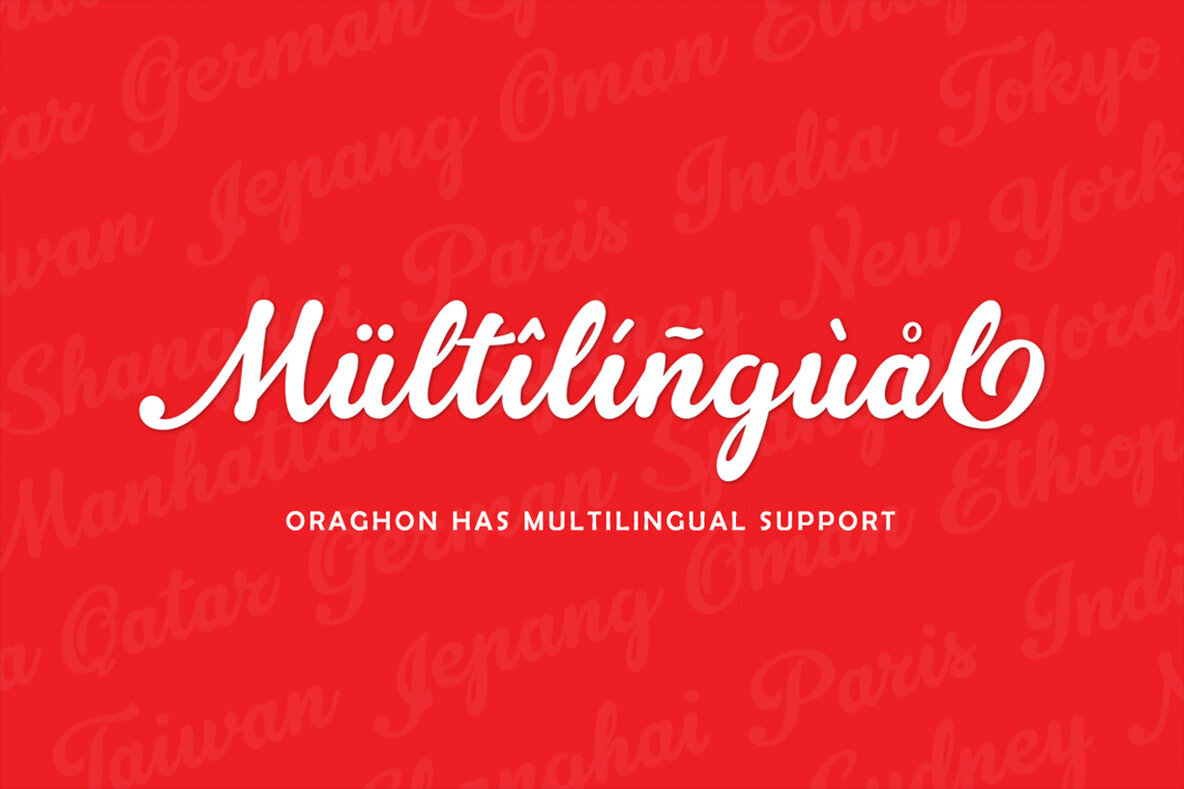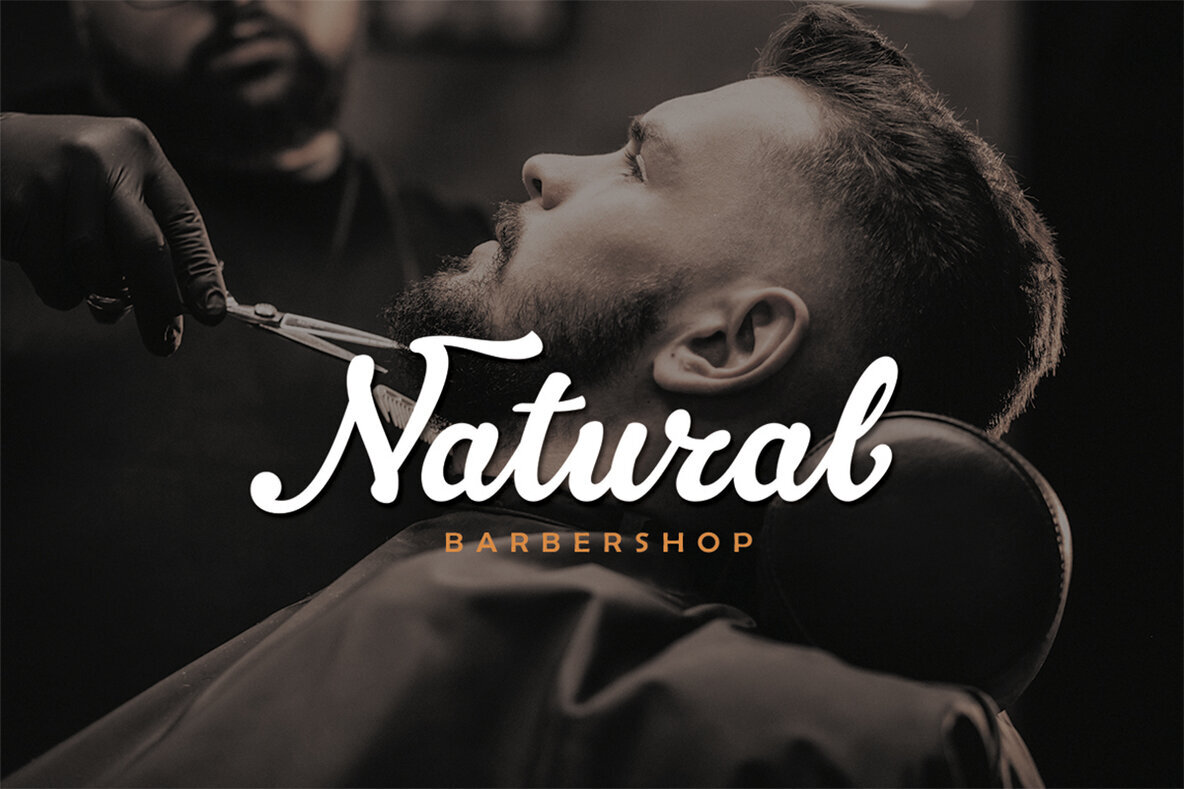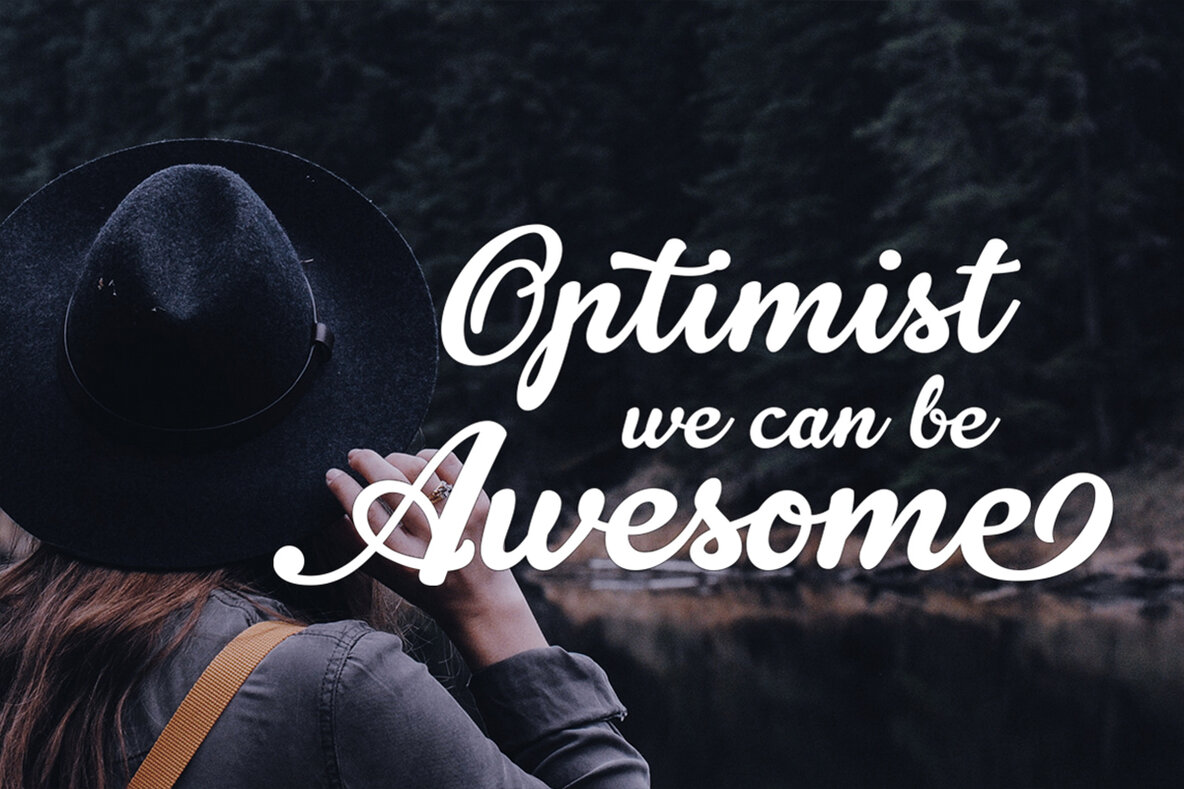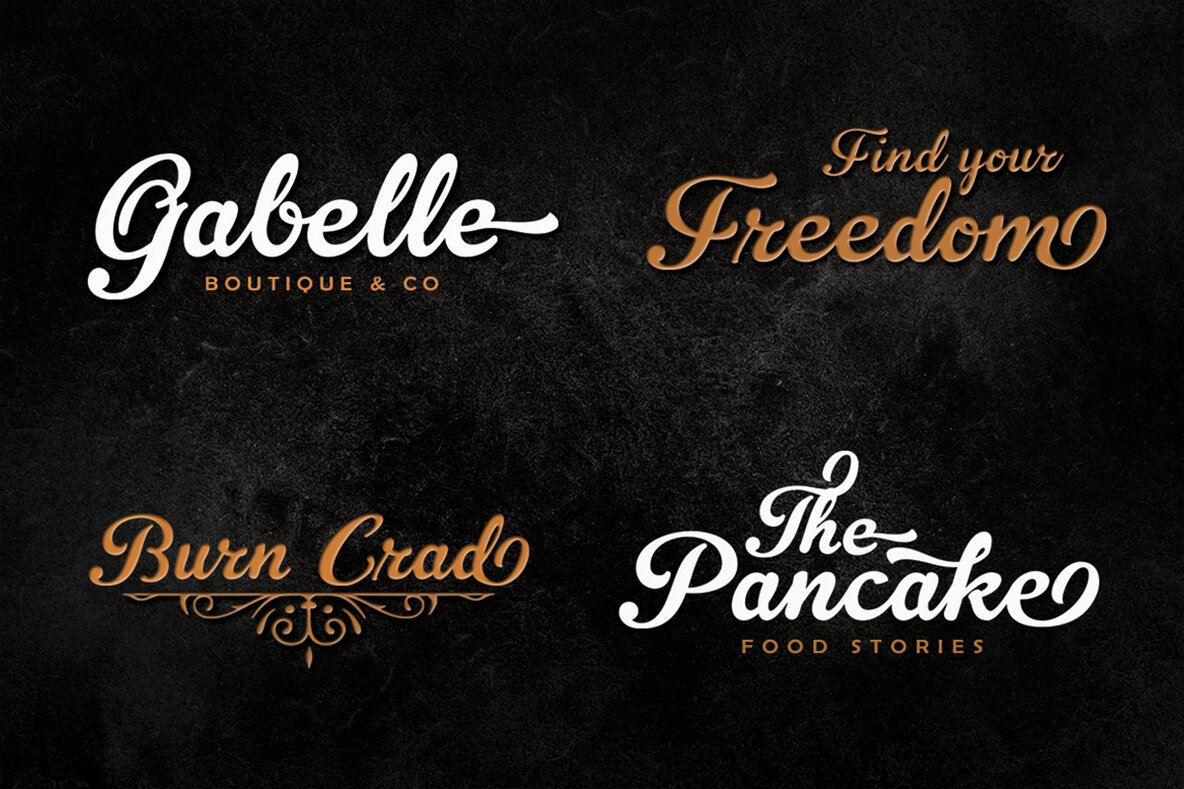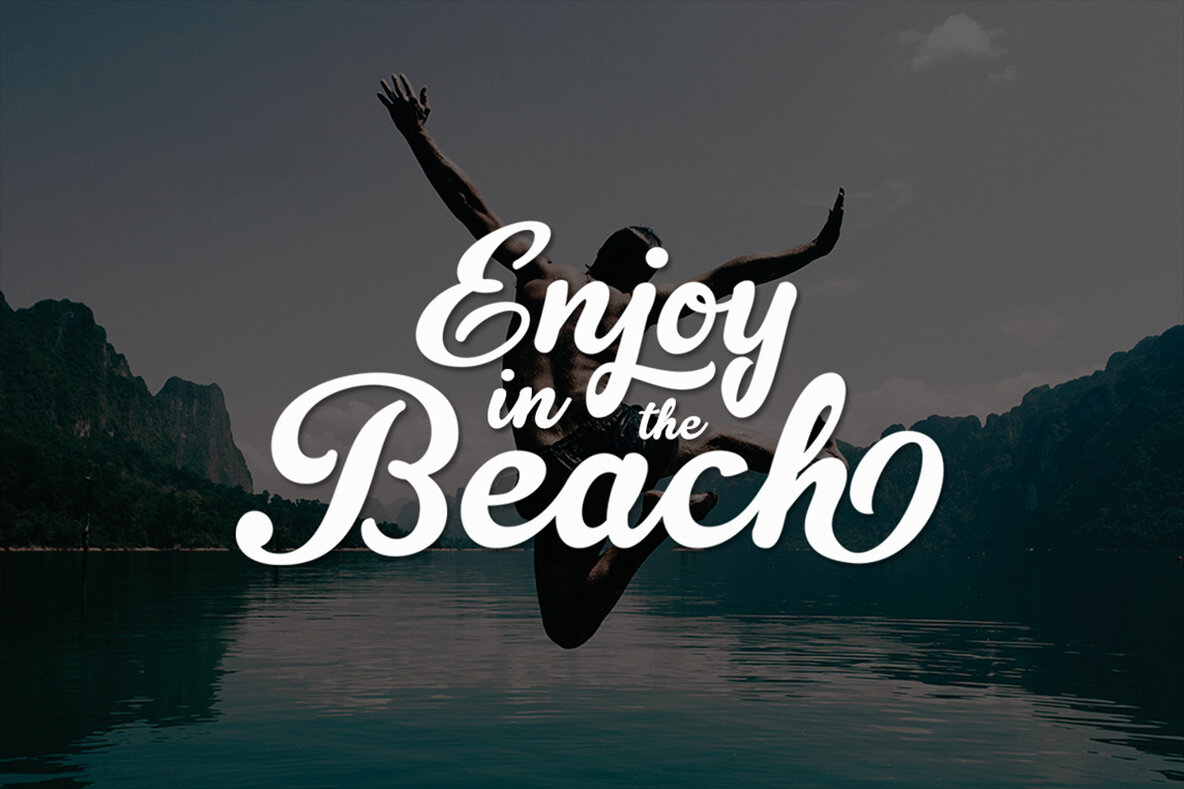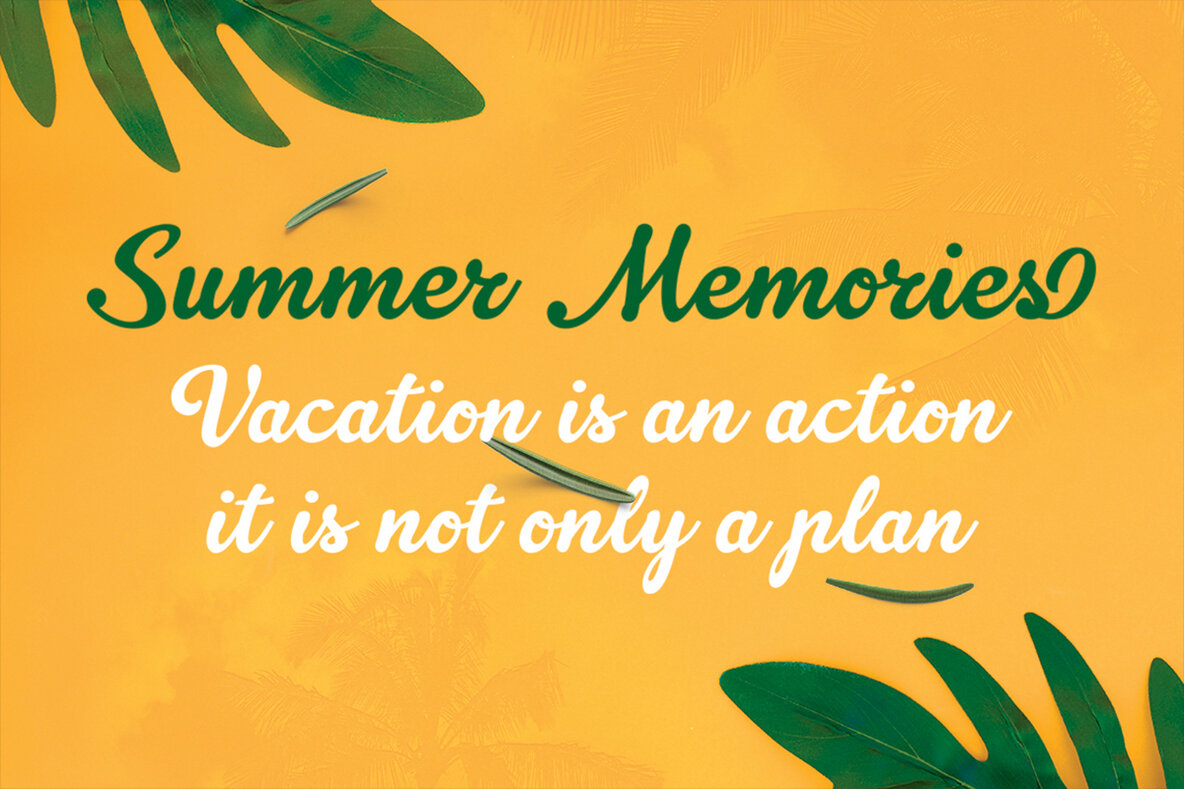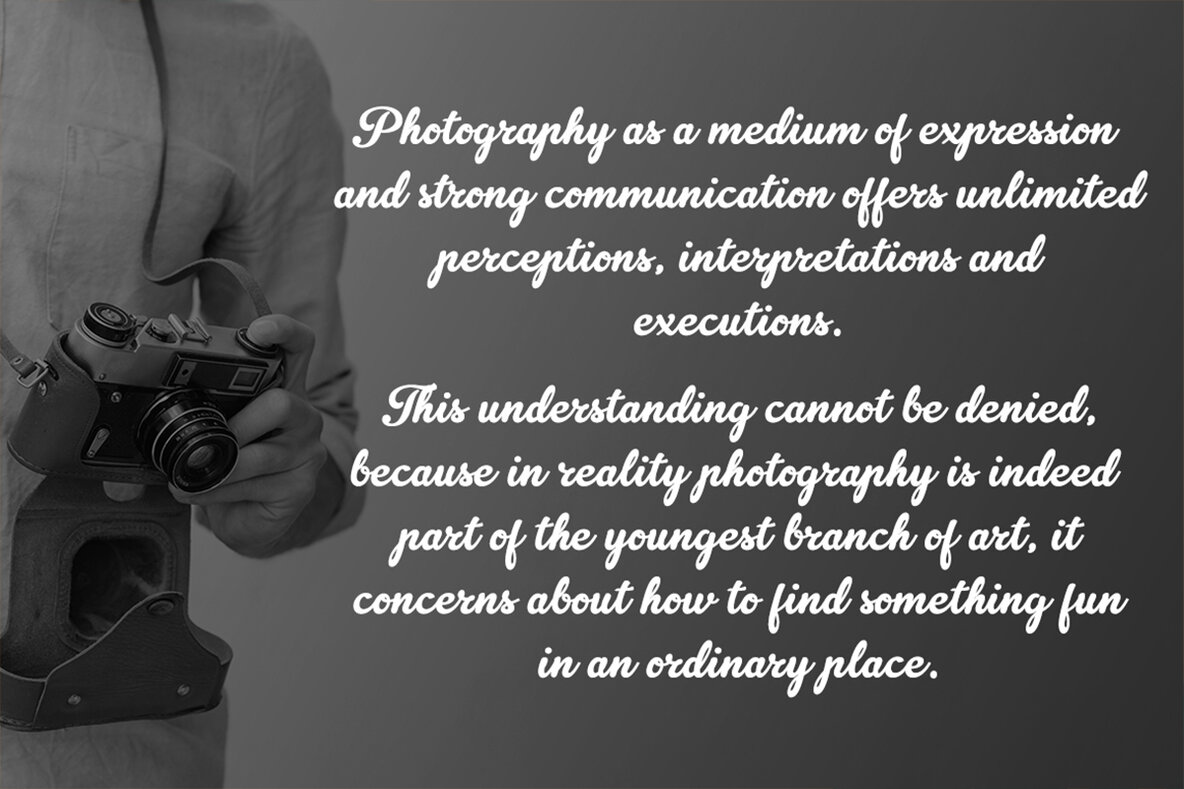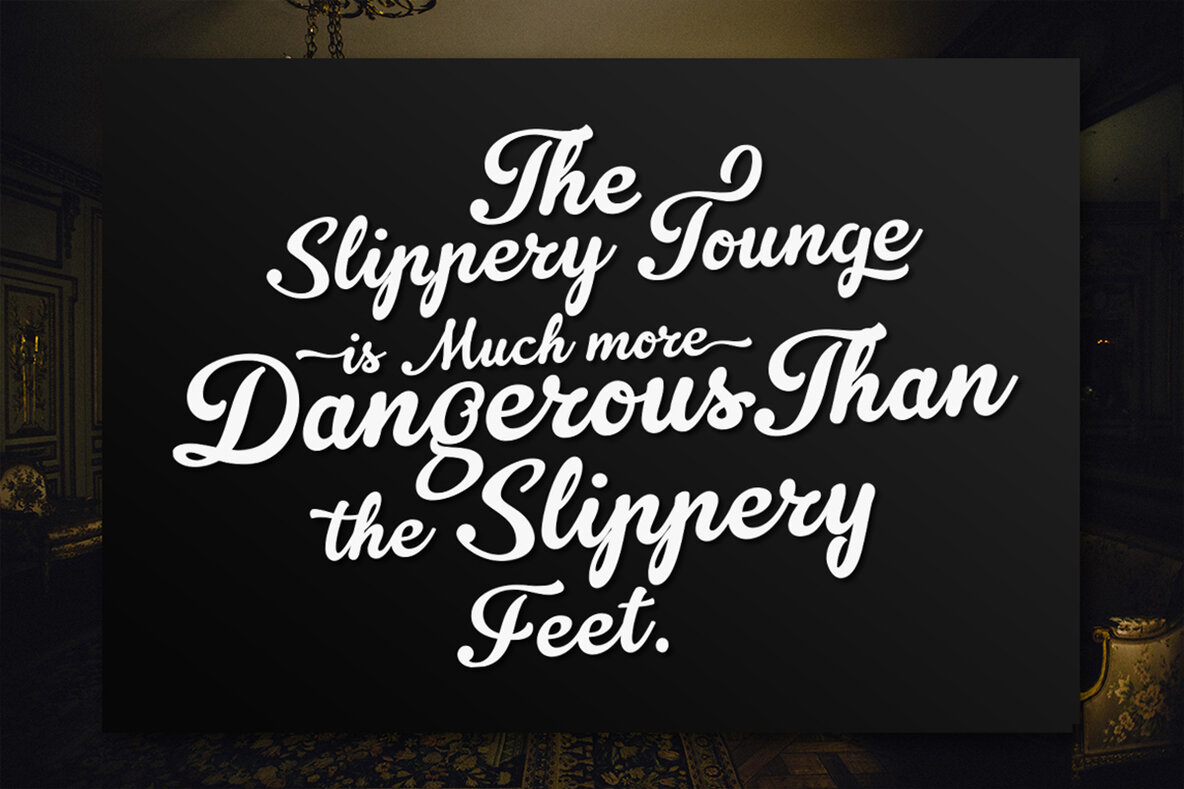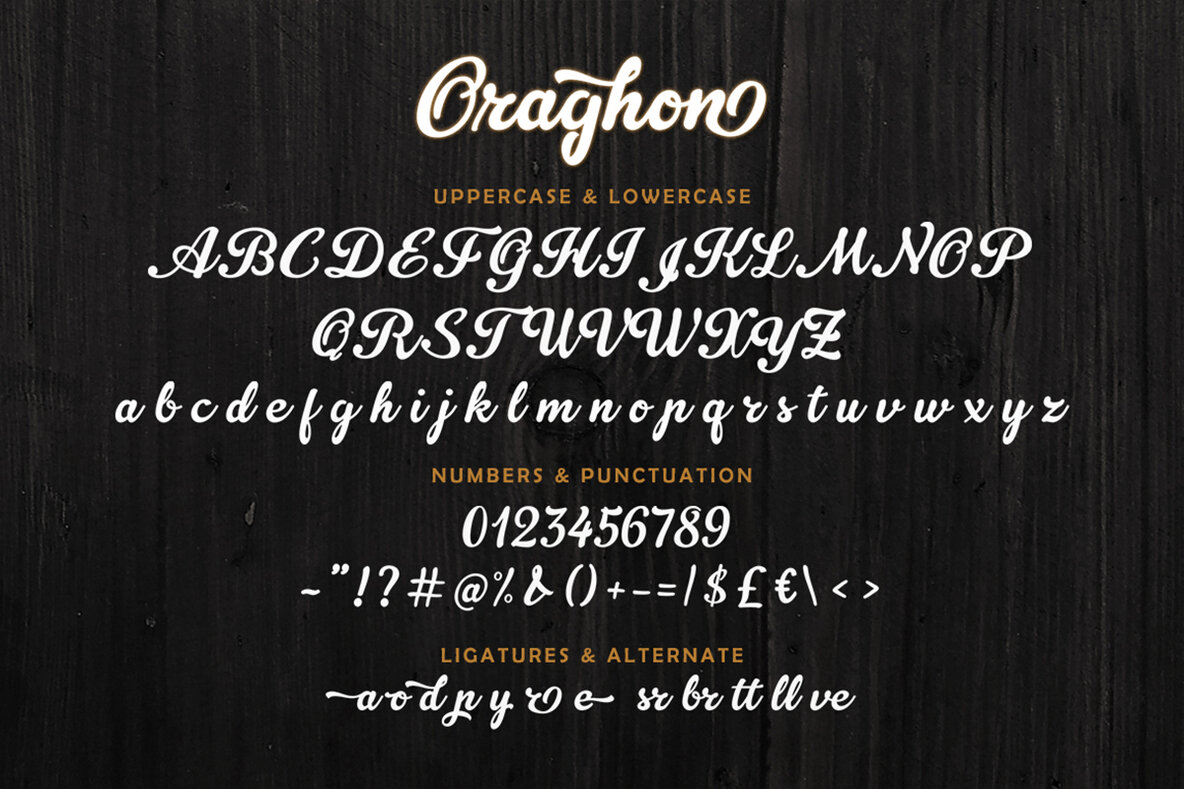
Oraghon Font
Oraghon Script Regular
Oraghon is a refined script font that elegantly marries copperplate modern with a hand-lettering style. This typeface exudes femininity and glamour, providing readability alongside its luxurious design. Ideal for a variety of applications, Oraghon enhances your projects with its blend of classic aesthetics and modern sensibilities. Features: With its classic appeal, Oraghon suits numerous formal and creative contexts. It is perfect for invitations, logos, and fashion branding, adding a touch of elegance to each project. Whether it's stationery, romantic novels, or wedding cards, Oraghon renders a sophisticated look that resonates across diverse media.Oraghon: Elegant Modern Script